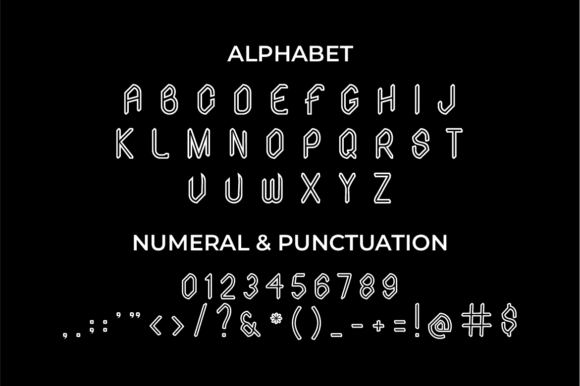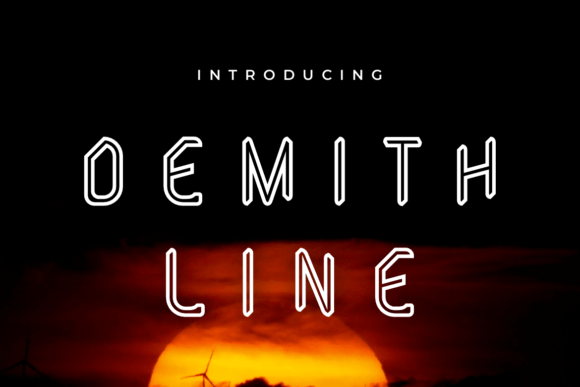
Discover the Bold and Edgy World of Demith Line Font
Are you tired of using the same old fonts in your designs? Look no further! Demith Line Font is a game-changer for designers and crafters alike. This cool and unique display font is about to become your new go-to asset, capable of elevating any creation to the next level.
What Makes Demith Line Font So Special?
Demith Line Font stands out from the crowd with its distinctive and edgy style. Its bold lines and modern aesthetic make it perfect for a wide range of design projects, from posters and flyers to logos and branding materials. Whether you’re working on a personal project or a client’s, this font is sure to make a statement.
Key Features of Demith Line Font
• Unique and Modern Design: Demith Line Font boasts a fresh and contemporary look that’s sure to capture attention.
• High Versatility: This font can be used across various design projects, including but not limited to, posters, flyers, logos, and social media graphics.
• Easy to Read: Despite its bold and edgy appearance, Demith Line Font remains highly legible, making it perfect for both headlines and body text.
Who Can Benefit from Demith Line Font?
Demith Line Font is a valuable asset for a broad spectrum of designers and crafters, including:
• Graphic Designers: Looking for a bold and modern font to make their designs pop.
• Logotype and Branding Specialists: Seeking a unique font that can help create a memorable brand identity.
• Digital Artists: Wanting to add a touch of personality and edge to their digital artworks.
• Crafters and Makers: Needing a versatile font for their DIY projects, such as handmade cards, posters, and signs.
How to Use Demith Line Font Effectively
To maximize the impact of Demith Line Font, consider the following tips:
• Pair it with Simpler Fonts: Combine Demith Line Font with a clean, sans-serif font for body text to create visual contrast and hierarchy.
• Experiment with Colors and Textures: Don’t be afraid to play around with different colors and textures to enhance the font’s bold appearance.
• Use it for Headlines and Titles: Take advantage of Demith Line Font’s attention-grabbing style by using it for headlines, titles, and key messages.
Demith Line Font is more than just a font – it’s a design statement. Its unique blend of boldness and modernity makes it an indispensable tool for designers and crafters looking to elevate their creations. Whether you’re working on a commercial project or a personal endeavor, this font is sure to bring a fresh and exciting element to your designs. So why wait? Discover the world of possibilities with Demith Line Font today and take your designs to new heights!